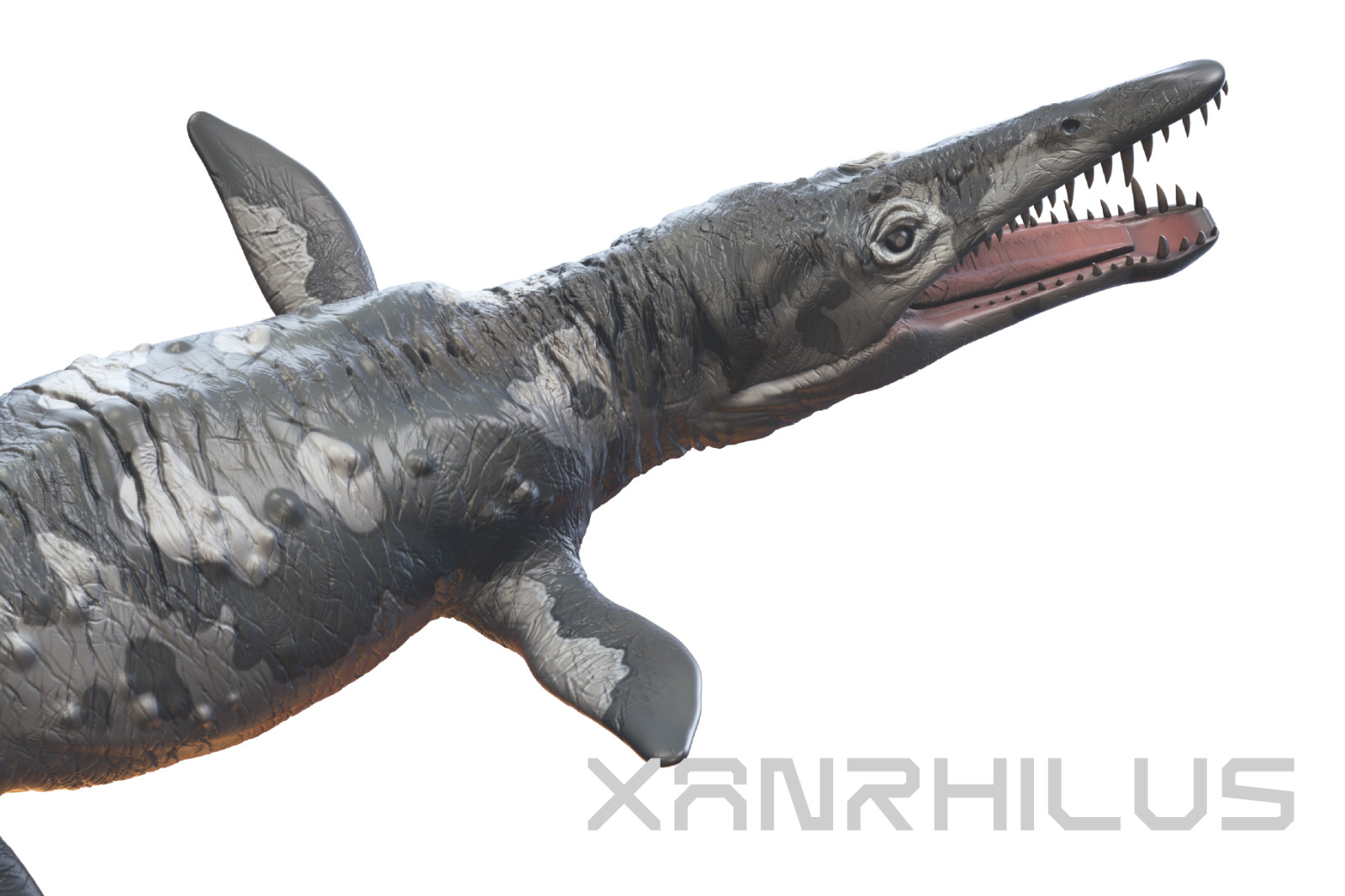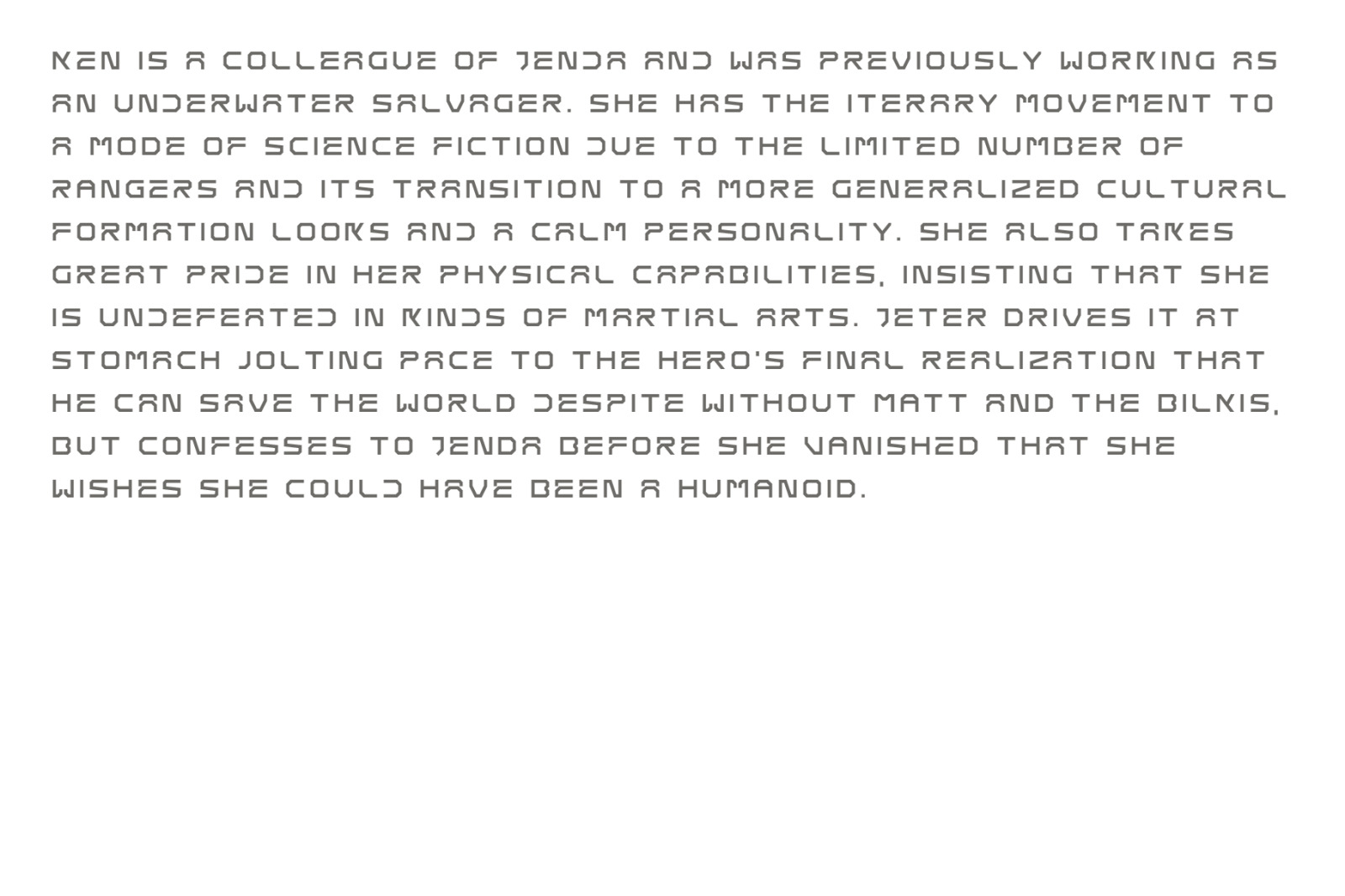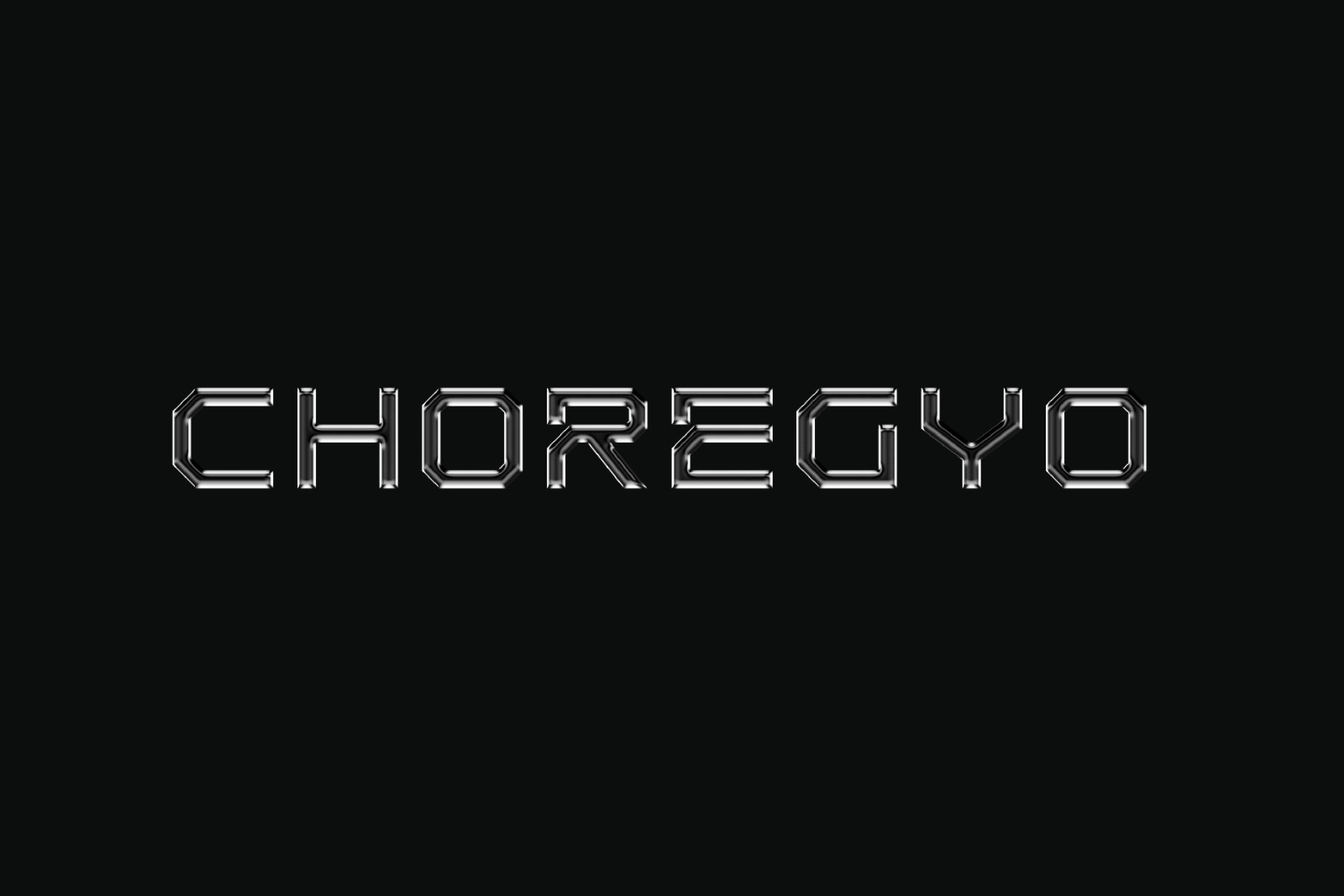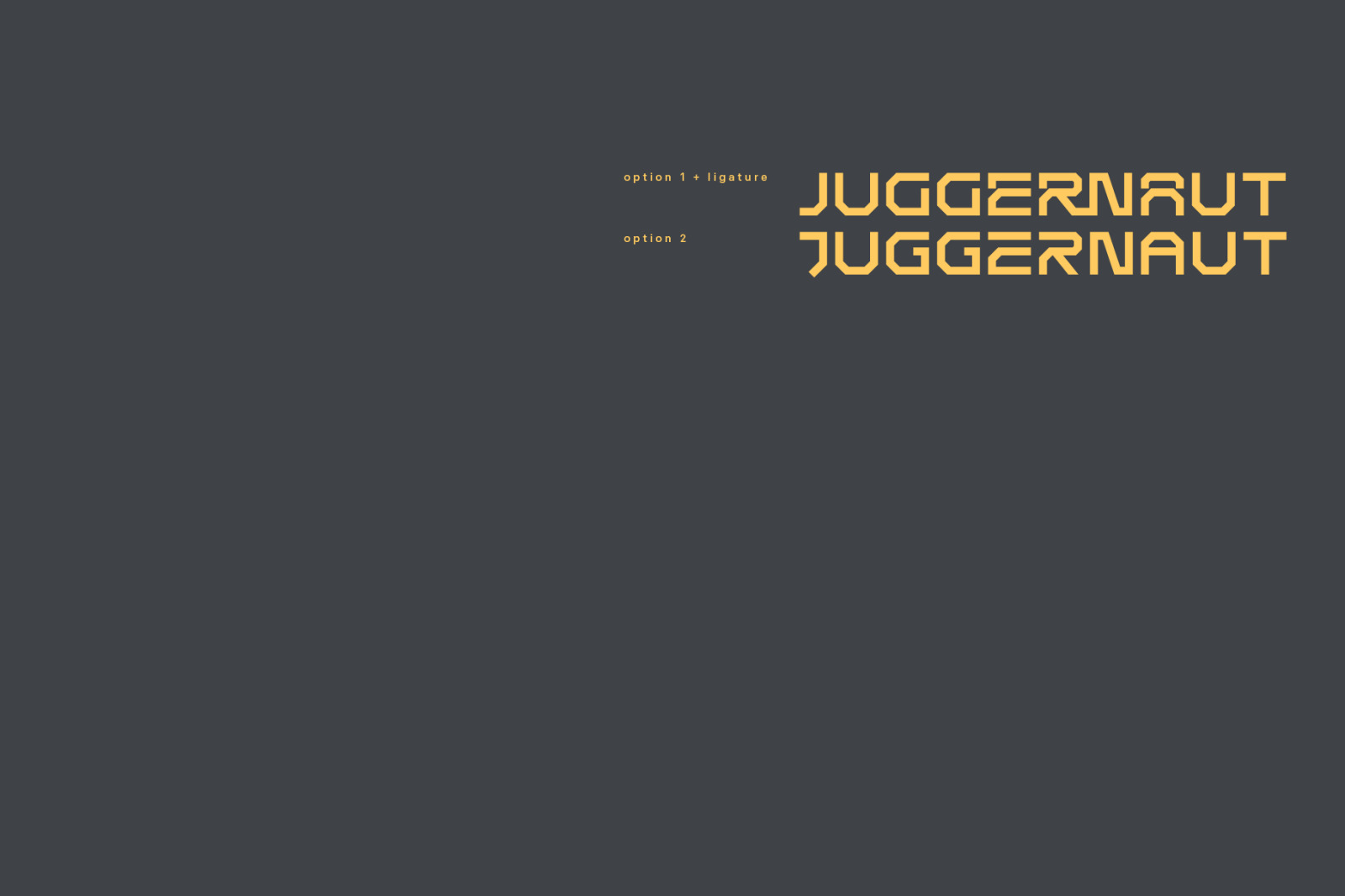
Emqra Tech Font
EMQRA is a modified intelligence, robust display font apt for conceptual prototype, product design, album cover, hud typography and user interface applications.
- All caps with alternative
- Discretionary ligatures (supported by Illustrator, Photoshop & InDesign)
- Numbers and punctuations
- Toggle caps lock for alternative glyphs